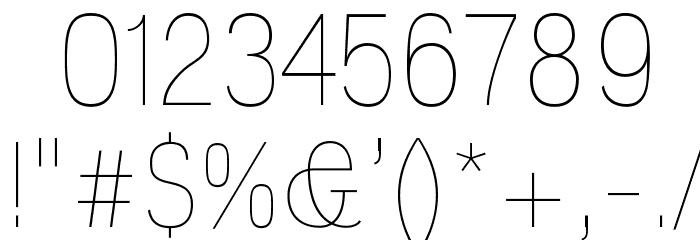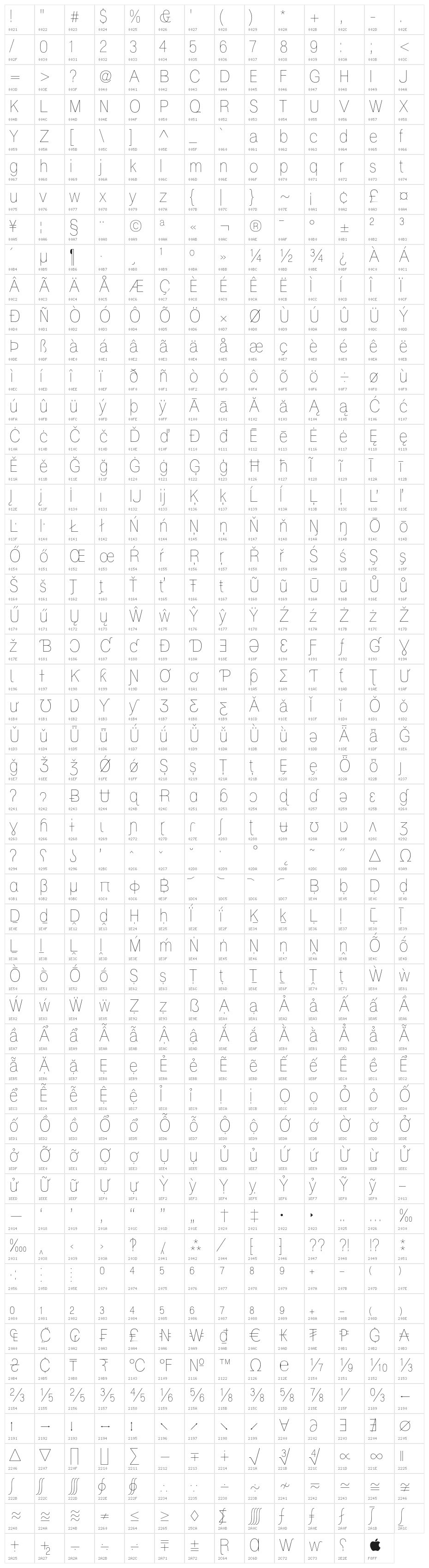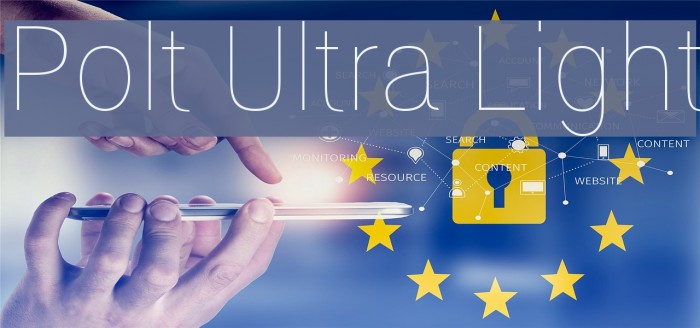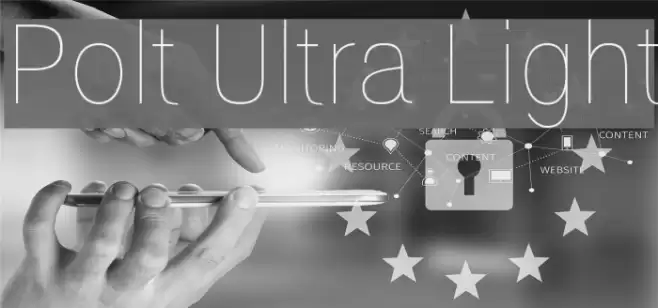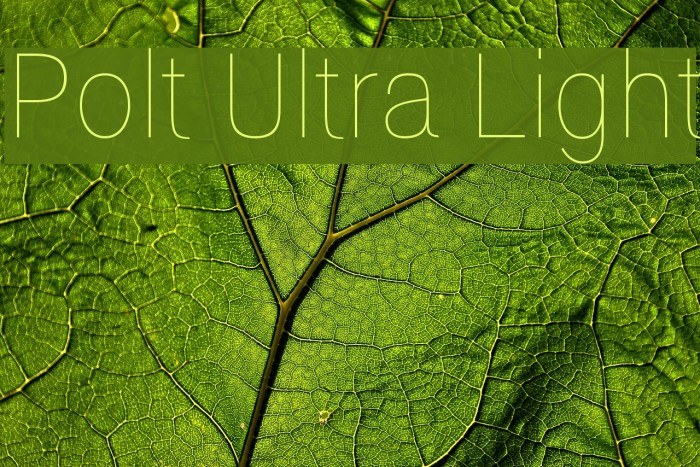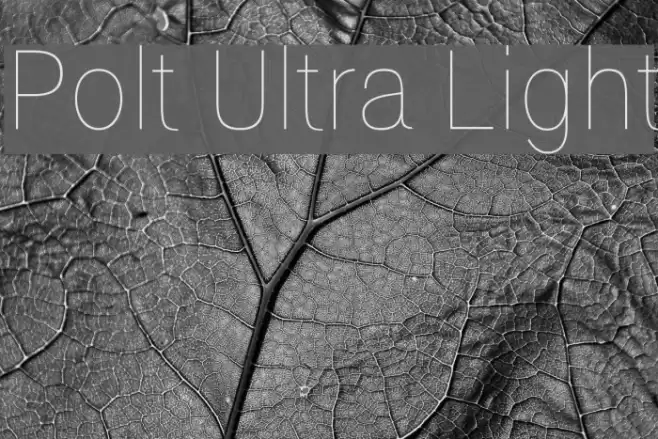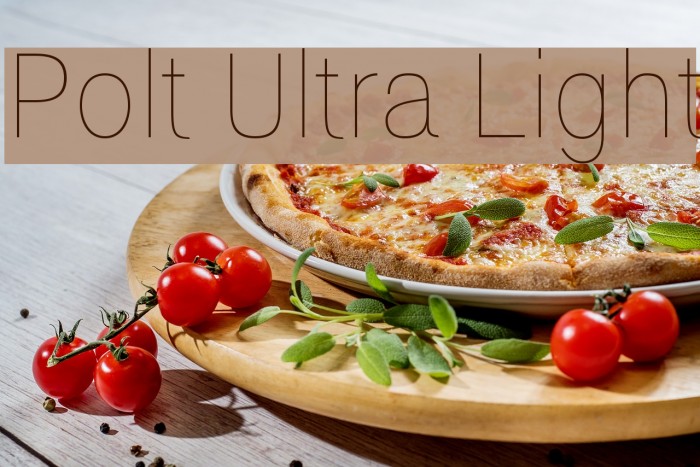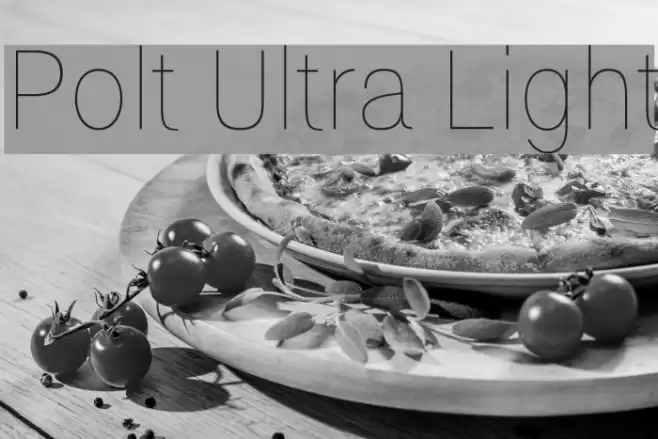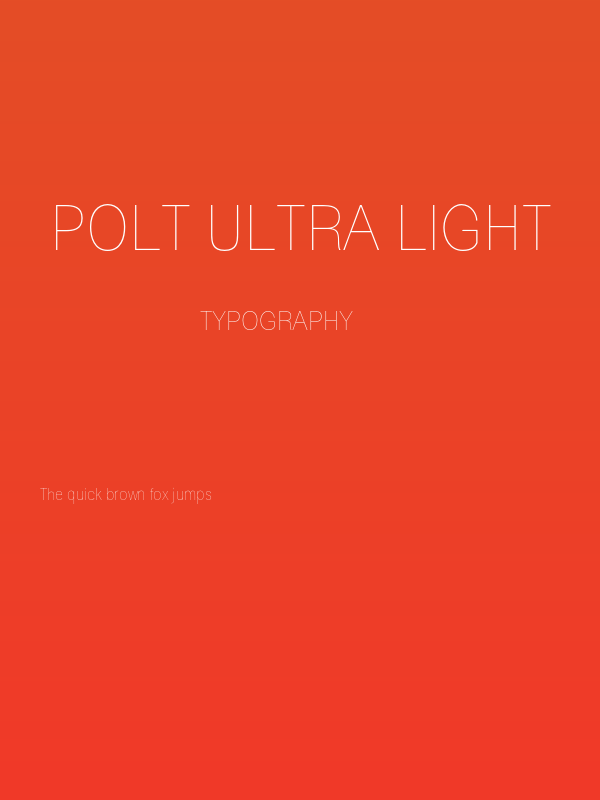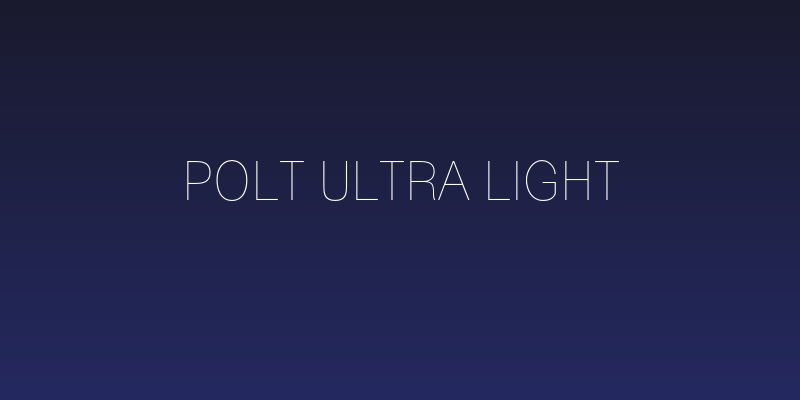
Polt Ultra Light Font
Polt Ultra Light Description
This font features a sleek and ultra-light design, characterized by its thin strokes and modern aesthetic. The uppercase and lowercase letters are crafted with precision, maintaining a consistent line weight throughout. The numerals and special characters complement the alphabet with their minimalist style, making the font versatile for various applications. Its clean and airy appearance makes it ideal for contemporary design projects where a subtle yet sophisticated look is desired.
| Proposed Projects | Ideal for modern branding, minimalist posters, elegant invitations, and digital interfaces. |